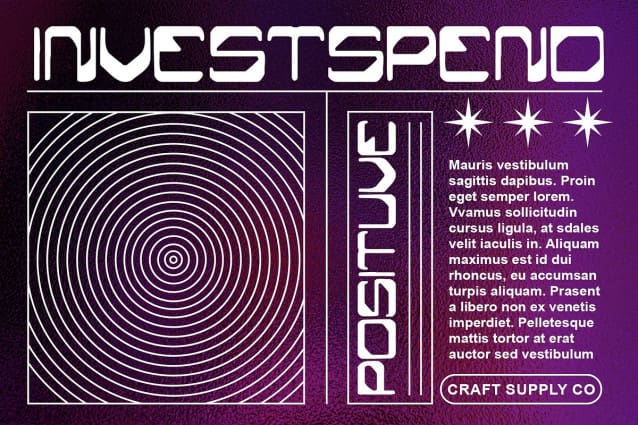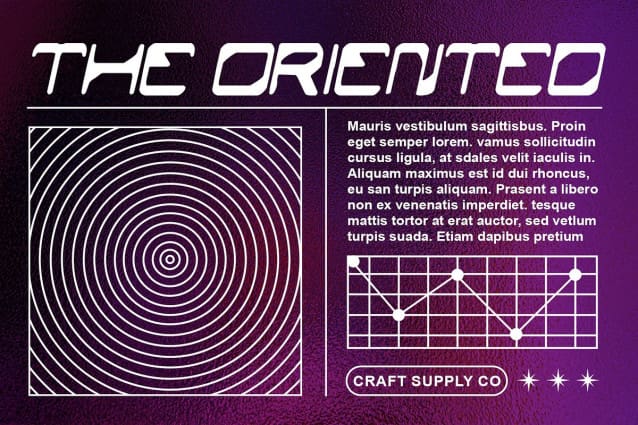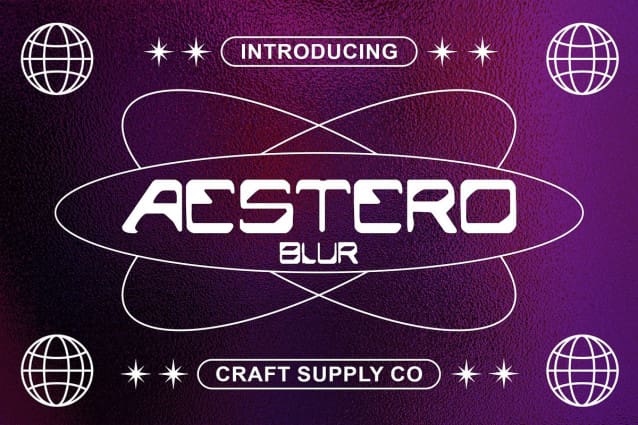
Aestero Blur Font
Aestero Blur Font : Futuristic Display Typography, inspiration from the futuristic landscapes of science fiction. Its design evokes a sense of technological advancement and otherworldly allure, perfect for captivating display projects.
Customized with Blur Effects With custom blur effects incorporated into its display design, This font offers a unique and immersive visual experience. The blurred elements add depth and dynamism, making each character stand out with an intriguing aura.
Tailored for Eye-Catching Designs Crafted specifically for eye-catching designs, This font excels in capturing attention and leaving a lasting impression. Whether used in posters, digital ads, or website headers, its distinctive style ensures that your message is noticed.
Ideal for Versatile Display Applications This font versatility extends to various display applications, from sci-fi movie posters to futuristic-themed event promotions. Its blend of creativity and functionality makes it a go-to choice for designers seeking to convey innovation and excitement.
Where Sci-Fi Meets Design This font seamlessly merges the futuristic aesthetics of science fiction with innovative typography design. Its captivating blur effects and eye-catching appeal make it a must-have for designers looking to infuse their projects with a touch of sci-fi allure and visual intrigue. Step into the realm of This font and unleash the power of futuristic design in your next project.